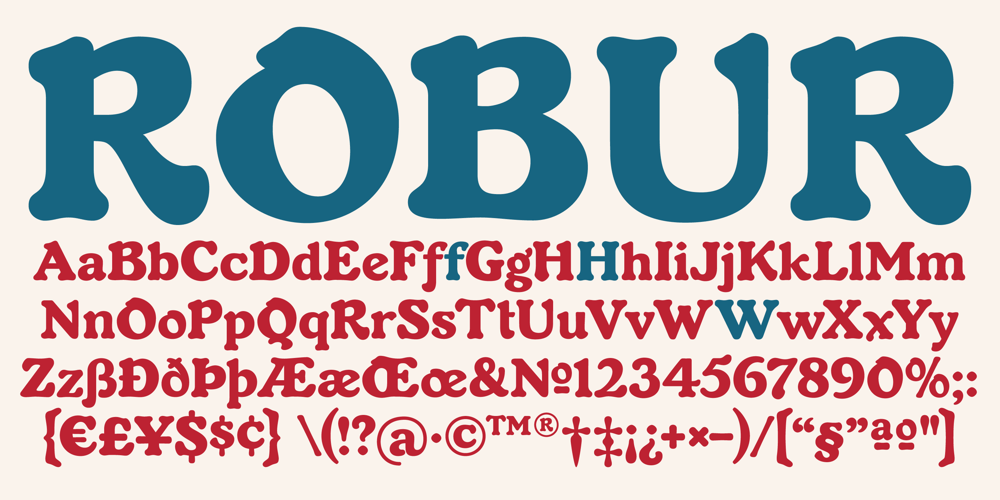
Robur Font Family was designed by Georges Auriol, Patrick Griffin, Kevin Allan King and published by Canada Type. Robur contains 3 styles and family package options. It shouldn’t be a surprise to anyone that these letter shapes are familiar. They have the unmistakable color and weight of Cooper Black, Oswald Cooper’s most famous typeface from 1921. What should be a surprise is that these letters are actually from George Auriol’s Robur Noir (or Robur Black), published in France circa 1909 by the Peignot foundry as a bolder, solid counterpart to its popular Auriol typeface (1901). This face precedes Cooper Black by a dozen of years and a whole Great War. Cooper Black has always been a bit of a strange typographical apparition to anyone who tried to explain its original purpose, instant popularity in the 1920s, and major revival in the late 1960s. BB&S and Oswald Cooper PR aside, it is quite evident that the majority of Cooper Black’s forms did not evolve from Cooper Old Style, as its originators claimed. And the claim that it collected various Art Nouveau elements is of course too ambiguous to be questioned. But when compared with Robur Noir, the “elements” in question can hardly be debated. The chronology of this “machine age” ad face in metal is amusing and stands as somewhat of a general index of post-Great War global industrial competition: – 1901: Peignot releases Auriol, based on the handwriting of George Auriol (the “quintessential Art Nouveau designer,” according to Steven Heller and Louise Fili), and it becomes very popular. – 1909-1912: Peignot releases the Robur family of faces. The eight styles released are Robur Noir and its italic, a condensed version called Robur Noir Allongée (Elongated) and its italic, an outline version called Clair De Lune and its condensed/elongated, a lined/striped version called Robur Tigre, and its condensed/elongated counterpart. – 1914 to 1918: World War One uses up economies on both sides of the Atlantic, claims Georges Peignot with a bullet to the forehead, and non-war industry stalls for 4 years. – 1921: BB&S releases Cooper Black with a lot of hype to hungry publishing, manufacturing and advertising industries. – 1924: Robert Middleton releases Ludlow Black. – 1924: The Stevens Shanks foundry, the British successor to the Figgins legacy, releases its own exact copies of Robur Noir and Robur Noir Allongée, alongside a lined version called Royal Lining. – 1925: Oswald Cooper releases his Cooper Black Condensed, with similar math to Robur Noir Allongée (20% reduction in width and vectical stroke). – 1925: Monotype releases Frederick Goudy’s Goudy Heavy, an “answer to Cooper Black”. Type historians gravely note it as the “teacher steals from his student” scandal. Goudy Heavy Condensed follows a few years later. – 1928: Linotype releases Chauncey Griffith’s Pabst Extra Bold. The condensed counterpart is released in 1931. When type production technologies changed and it was time to retool the old faces for the Typositor age, Cooper Black was a frontrunning candidate, while Robur Noir was all but erased from history. This was mostly due to its commercial revival by flourishing and media-driven music and advertising industries. By the late 1960s variations and spinoffs of Cooper Black were in every typesetting catalog. In the early- to mid-1970s, VGC, wanting to capitalize on the Art Nouveau onslaught, published an uncredited exact copy of Robur Black under the name Skylark. But that also went with the dust of history and PR when digital tech came around, and Cooper Black was once again a prime retooling candidate. The “old fellows stole all of our best ideas” indeed. So almost a hundred years after its initial fizz, Robur is here in digital form, to reclaim its rightful position as the inspiration for, and the best alternative to, Cooper Black. Given that its forms date back to the turn of the century, a time when foundry output had a closer relationship to calligraphic and humanist craft, its shapes are truer to brush strokes and much more idiosyncratic than Cooper Black in their totality’s construct. Robur and Robur Italic come in all popular font formats. Language support includes Western, Central and Eastern European character sets, as well as Baltic, Esperanto, Maltese, Turkish, and Celtic/Welsh languages. A range of complementary f-ligatures and a few alternates letters are included within the fonts.